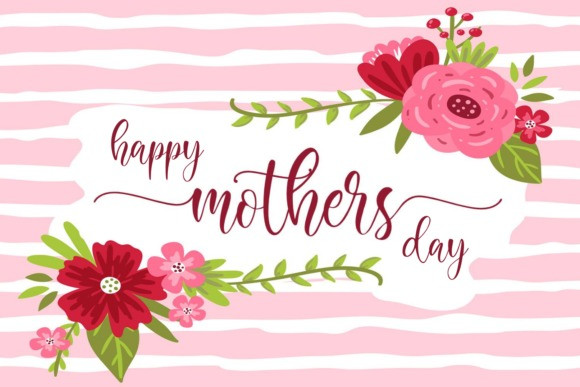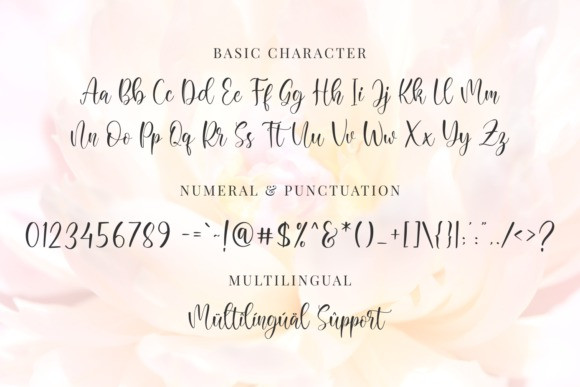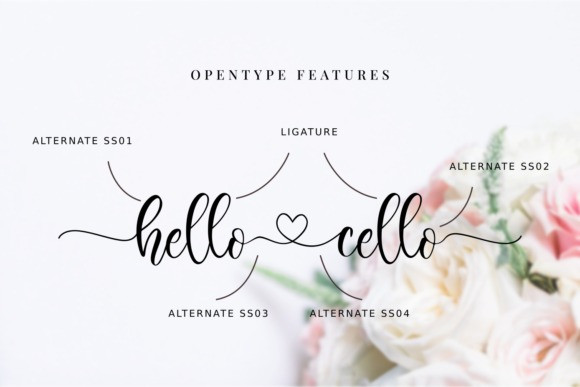
Leafdream Script Font
Leafdream is a sweet, whimsical, flowing and thin script font. Featuring characters that dance along the baseline, this font will add a luxury spark to any design project that you wish to create!